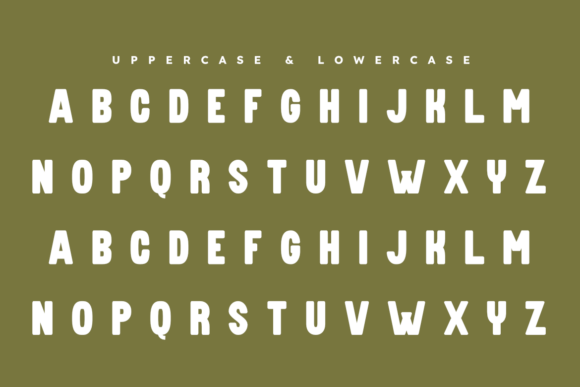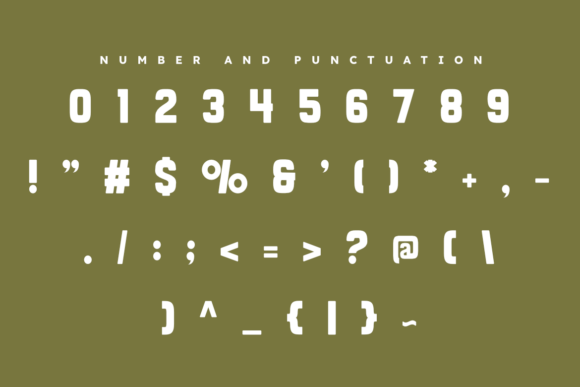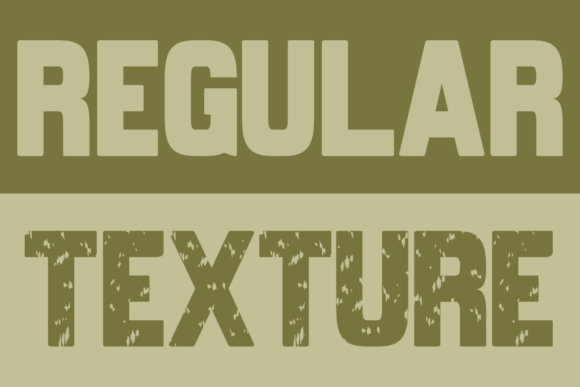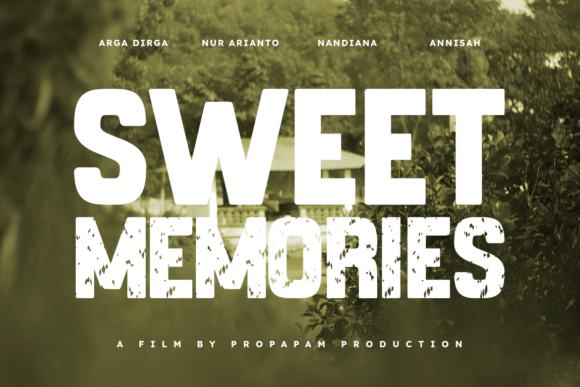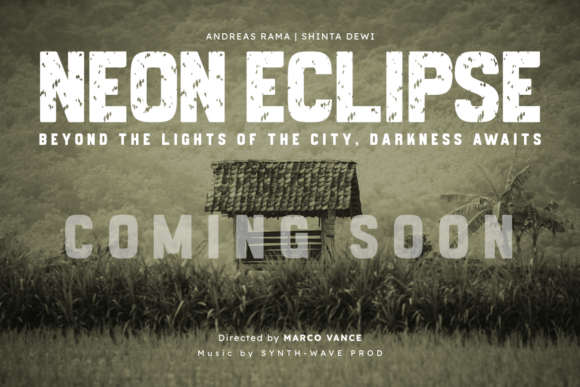
Unleashing the Power of the Retro Viber Font
As a designer, you know that finding the perfect font can make all the difference in a project. It’s that one moment when everything clicks into place, and your creative vision starts to take shape. For me, it was when I stumbled upon the Retro Viber Font, a powerful and versatile sans-serif typeface that perfectly captures the bold aesthetic of vintage industrial design.
What sets the Retro Viber Font apart is its dual personality: it includes both a Regular style for a clean, modern look and a Texture style for an authentic, rugged vintage feel. This combination makes it an essential tool for designers working on outdoor themes, sports branding, or nostalgic advertisement posters.
The Retro Viber Font is a game-changer for any creative project, offering a rugged versatility that is rare in display fonts. With its bold, condensed architecture, it ensures high readability while maintaining a strong, masculine presence. Whether you’re working on a free download or a high-end commercial project, the Retro Viber Font is a valuable asset to have in your design arsenal.
Key Features of Retro Viber Font
- Retro-inspired aesthetic with a unique blend of vintage and modern elements, perfect for adding a touch of nostalgia to your designs.
- Unique characteristics include distressed textures, worn-out effects, and subtle color variations, adding depth and character to your designs.
Honest Review: Retro Viber Font
As a designer, I’m always on the lookout for unique and high-quality design resources to elevate my creative projects. Recently, I stumbled upon the Retro Viber Font, and I must say it’s been a great addition to my design toolkit.
Here’s what I love about the Retro Viber Font:
- ✨ The font’s retro aesthetic is a great fit for vintage-inspired designs, and the high-quality design ensures that it looks great on a variety of backgrounds.
- ⚠️ The font’s character set is limited, which may not be suitable for longer blocks of text.
- ⚠️ The font’s bold weight could be more consistent across different font sizes.
Overall, I’m impressed with the Retro Viber Font’s unique style and high-quality design. While it may have some limitations, it’s a great resource for designers looking to add a touch of retro flair to their creative projects.